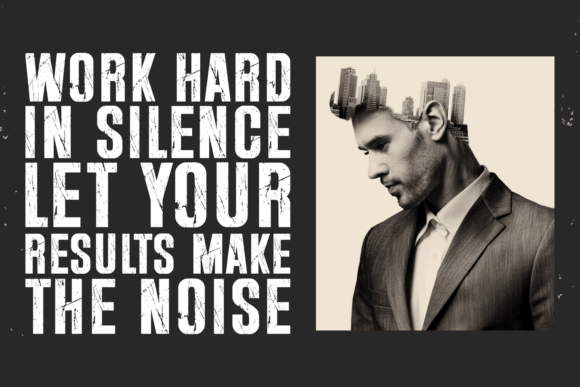
Magic Battle Font
Magic Battle is a bold, distressed display font that demands attention. Featuring rugged textures and a weathered, battle-worn aesthetic, this typeface evokes strength, resilience, and power. Perfect for military-themed projects, fantasy game titles, gritty posters, or survival-themed branding, Magic Battle blends raw impact with vintage appeal. Its tall, blocky letterforms ensure maximum readability while the scratchy surface adds character and edge.